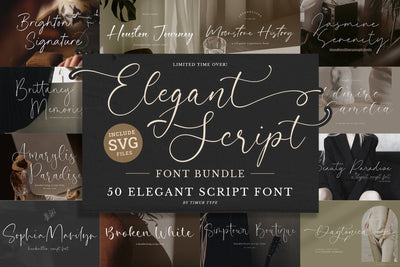
Elegant Luxury Script Font Bundle
Elegant Script Font Bundle!
This pack is perfect for greeting cards, branding, business cards, quotes, posters, stickers, blogs, logos, weddings, signage, packaging, birth announcements, photo overlays, wall art, quotes, printed materials, bags, t-shirts and much more !
– Alternate, Ligature, and Swash